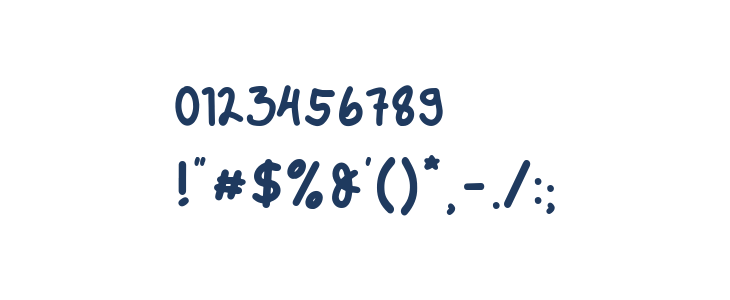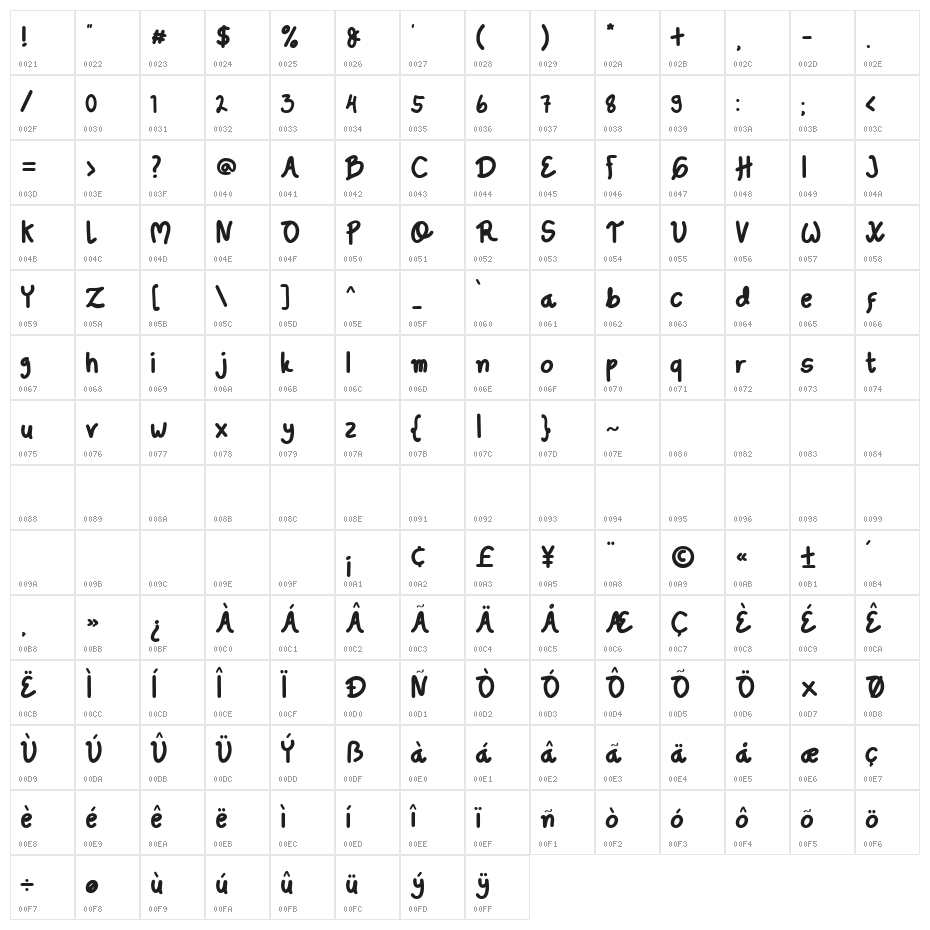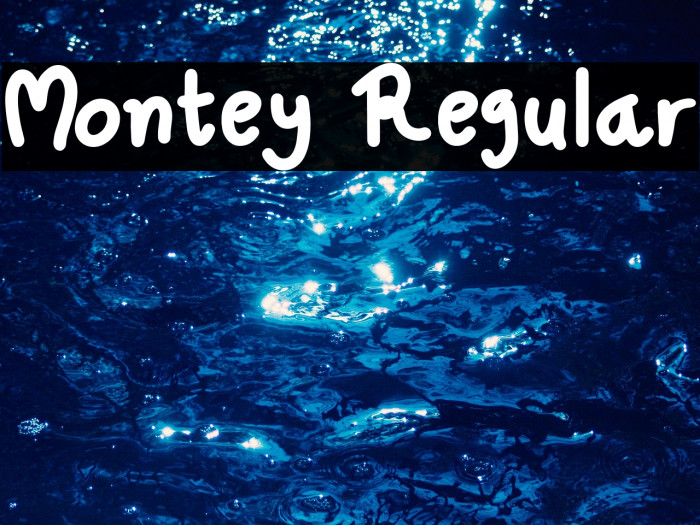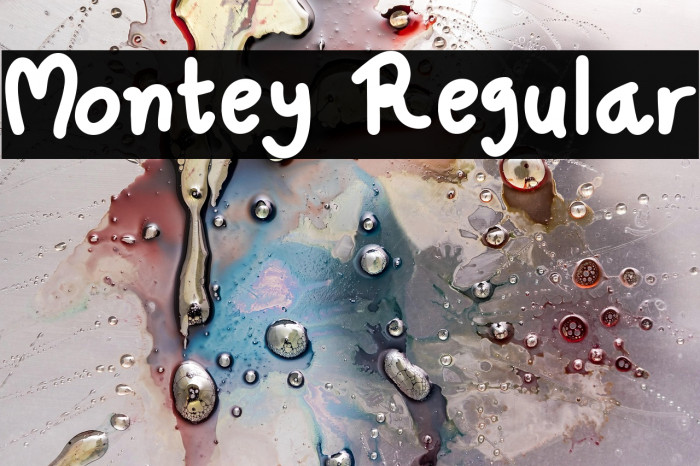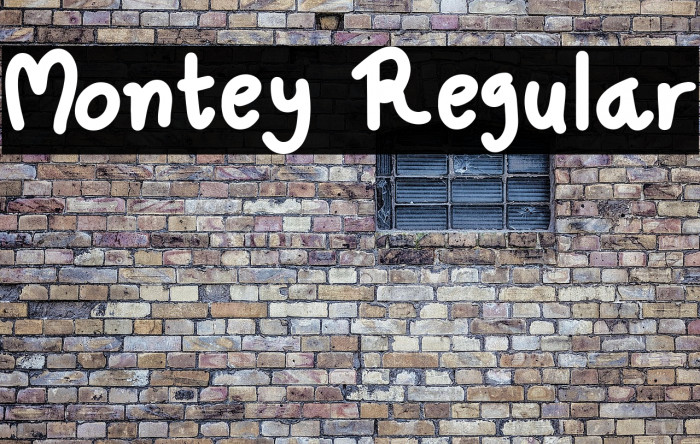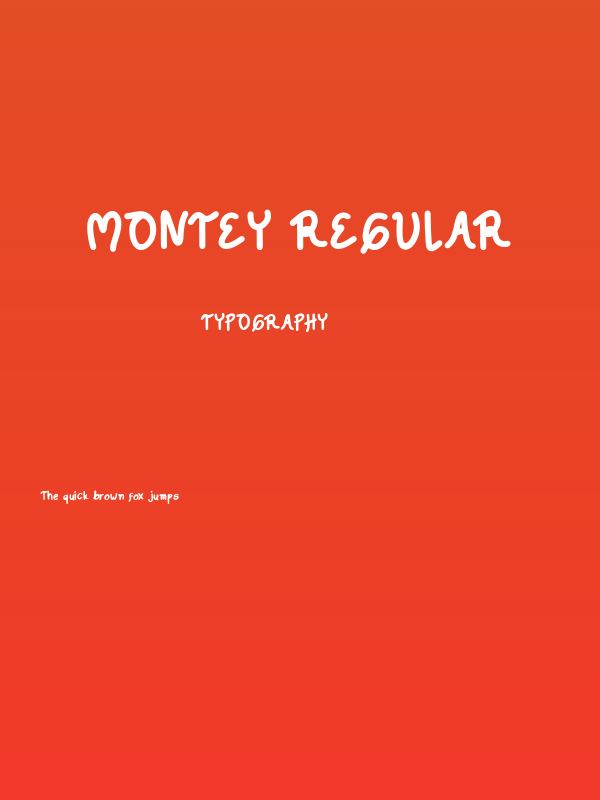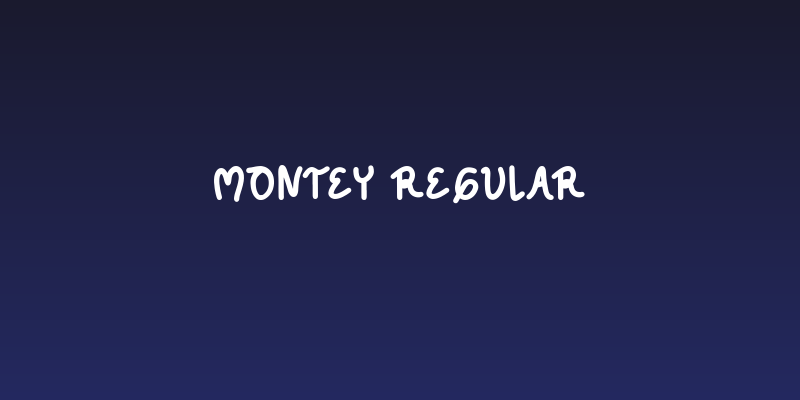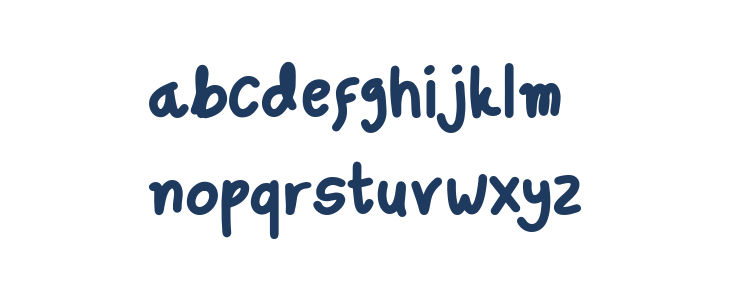
Montey Regular Font
Montey Regular Description
This playful and bold font features a handwritten style with a casual and friendly appearance. The characters are rounded and slightly irregular, giving it a whimsical and approachable feel. The uppercase and lowercase letters maintain a consistent flow, while the numerals and special characters complement the overall style. The font's strokes are thick and uniform, contributing to its bold presence. Its unique character shapes make it suitable for creative and informal projects.
| Proposed Projects | Ideal for children's books, greeting cards, playful branding, and social media graphics. |